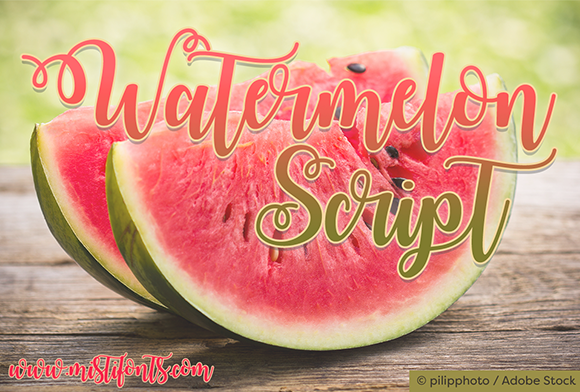
HomeScript FontsWatermelon Script Font Script Fonts Watermelon Script Font FacebookXPinterestWhatsApp About Watermelon Script Font Watermelon Script is a juicy, bouncy calligraphy font that is perfect for your craft and design projects! DOWNLOAD ON CREATIVE FABRICAThis font is sold and delivered by Creative Fabrica. Font Canyon may earn a commission if you buy through this link. People also explored Numberlin Ordinary Font Fallons Font Flamengo Font Ohayou Friday Font Aladyne Font Madeleine Melanie Font Happyness Font Elisabeth Raelyn Font Kileegon Zales Font 276 0 TagsWatermelon Script Font Previous articleEva Script FontNext articleBe Yourself Font LEAVE A REPLY Cancel reply Comment: Please enter your comment! Name:* Please enter your name here Email:* You have entered an incorrect email address! Please enter your email address here Website: Save my name, email, and website in this browser for the next time I comment. Personal Use Free Sarwendah Personal Use Free Read more about this font Hollow Personal Use Free Read more about this font Triangular Curves Personal Use Free Read more about this font Angelia Personal Use Free Read more about this font BLOG Best Fonts for YouTube Videos: Make Your Thumbnails Stand Out Best Fonts for YouTube Videos: Make Your Thumbnails Stand Out Choosing the right font can make a massive difference in how your YouTube videos perform.... Transform Your Website: Elevate Your Typography with 7 Best Web Font Generators 5 Fonts That Will Dominate Design Trends in 2026 How to Cut Any Font on Cricut: Convert a Font to SVG (Free)